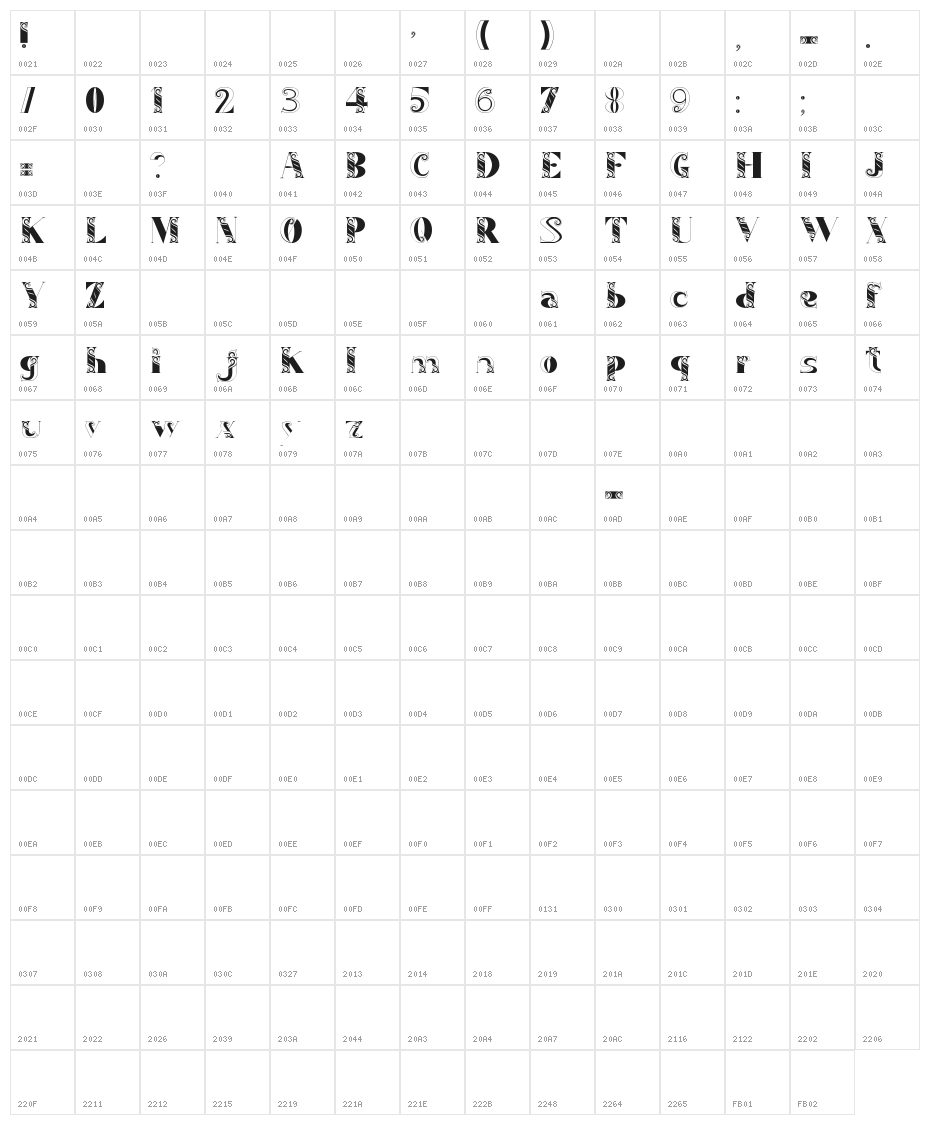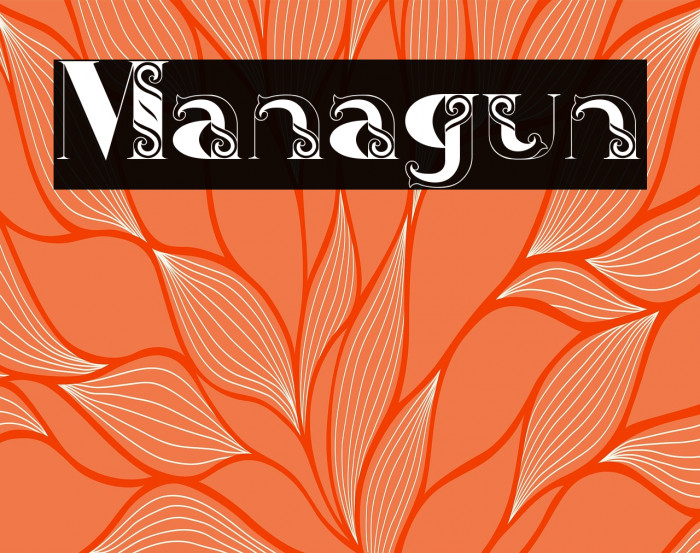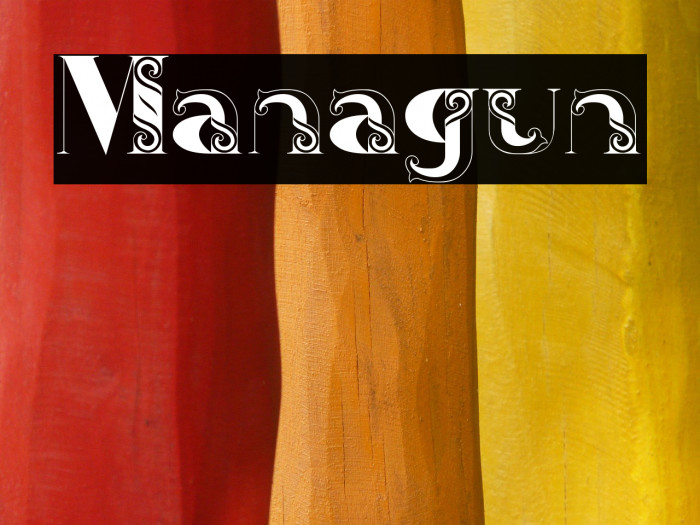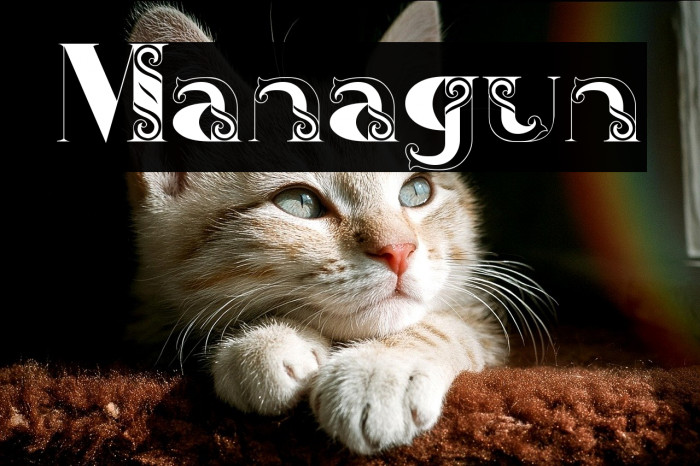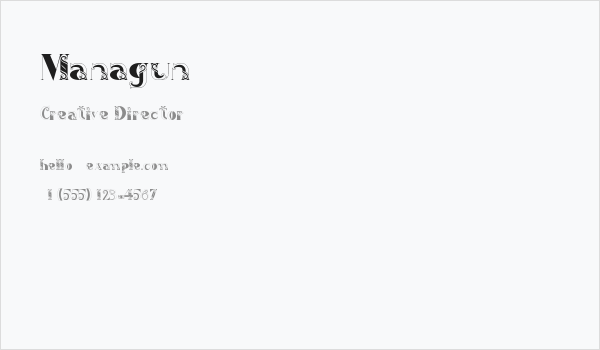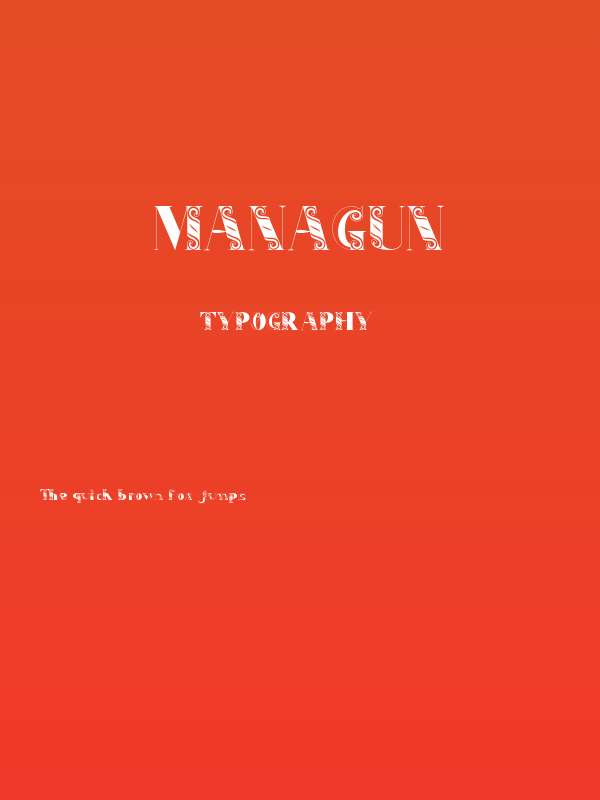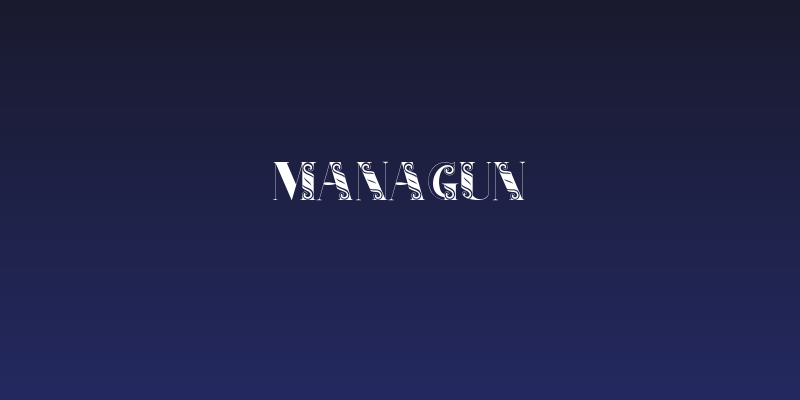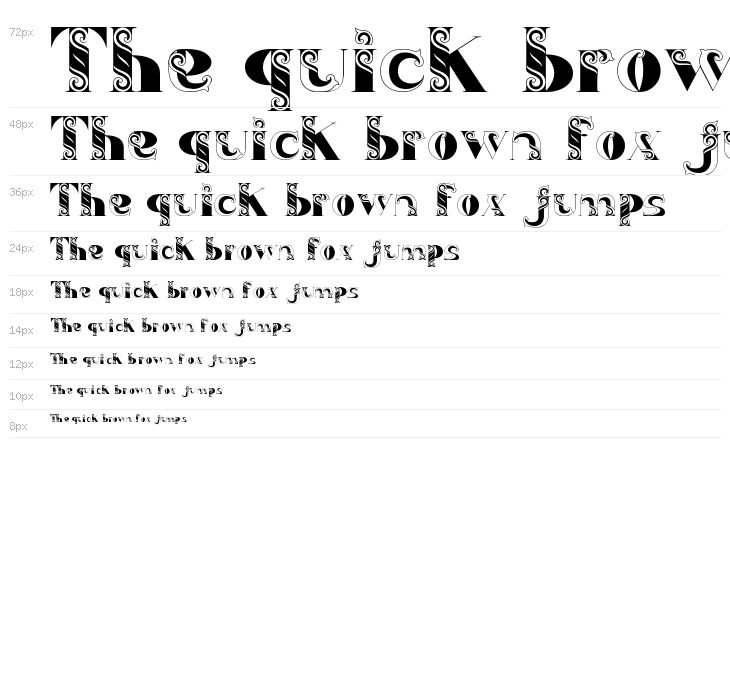
Managun Font
Managun Description
This font is a striking decorative typeface characterized by its intricate and ornate design. Each letter features elaborate swirls and curls, creating a sense of movement and elegance. The uppercase letters are bold and commanding, while the lowercase letters maintain the same decorative flair. The numerals and special characters are equally detailed, ensuring consistency throughout the font. This typeface is perfect for projects that require a touch of sophistication and artistic flair, making it ideal for invitations, posters, and branding that seeks to stand out.
Use CaseHeadlines, Logos, Invitations
Proposed ProjectsIdeal for wedding invitations, luxury branding, artistic posters, and decorative headlines.